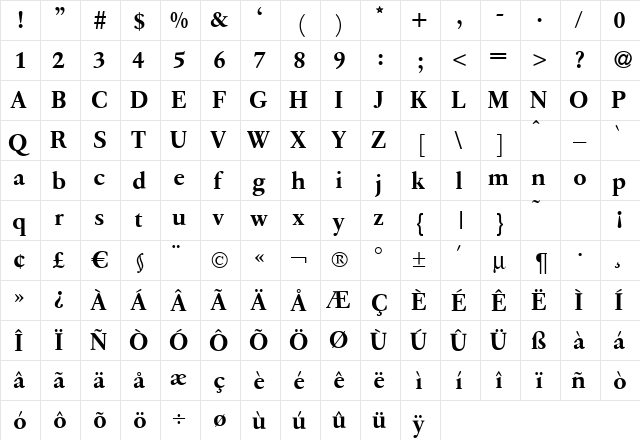
Q650-Roman Regular
Design Context for Q650-Roman Typeface
Q650-Roman offers clean, dependable letterforms without strong stylistic allegiance, making it a practical choice for designers who need flexibility.